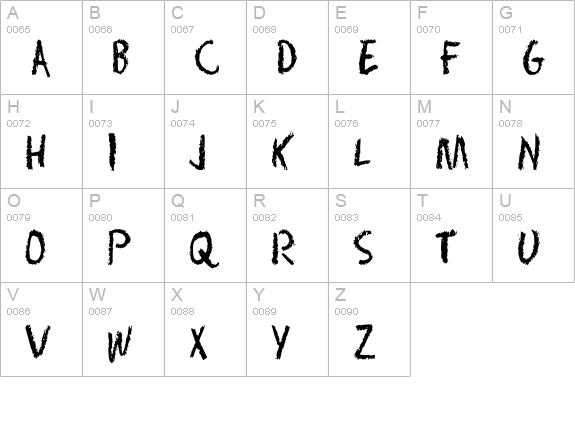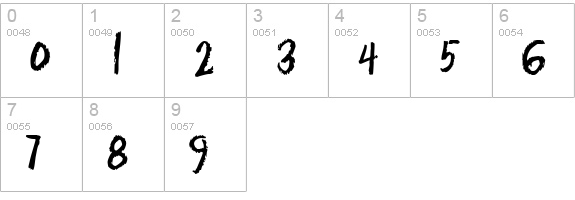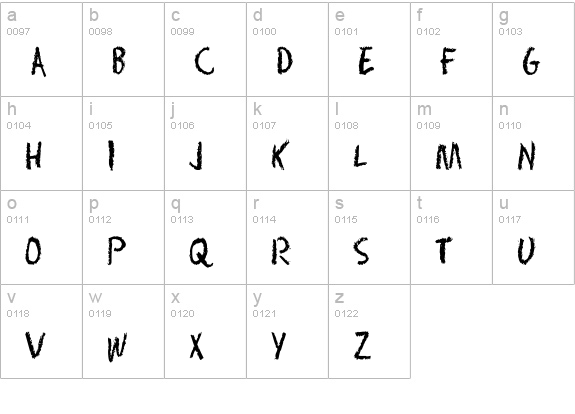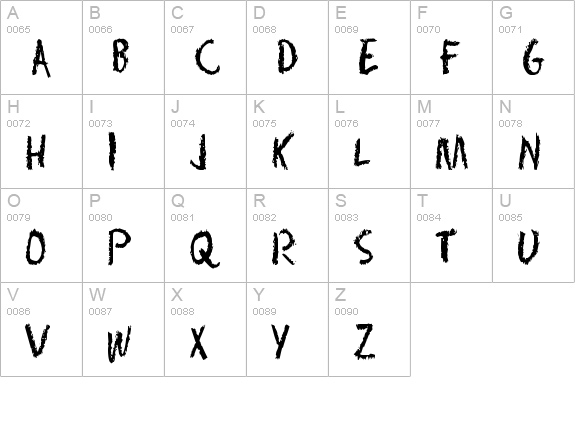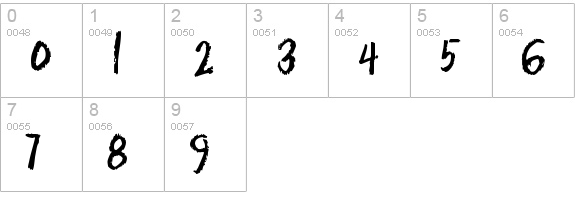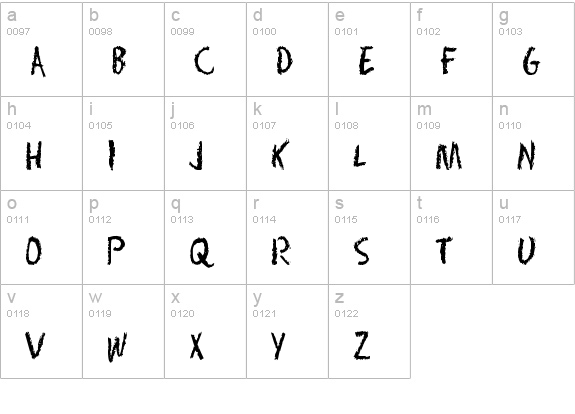
ChalkDustCondensed Font Details
ChalkDustCondensed is a whimsical and charming font that captures the essence of handwritten chalk writing on a blackboard. Its condensed style adds a touch of elegance and sophistication to any design project. The uneven edges and rough texture give it a unique and authentic look, perfect for adding a playful and creative touch to your designs. Best of all, ChalkDustCondensed is available for free download at FontsMarket.com. Whether you're creating posters, invitations, or any other design project, this font will surely make your text stand out and grab attention. Embrace the nostalgic feel of chalkboard writing with ChalkDustCondensed and let your creativity shine through.